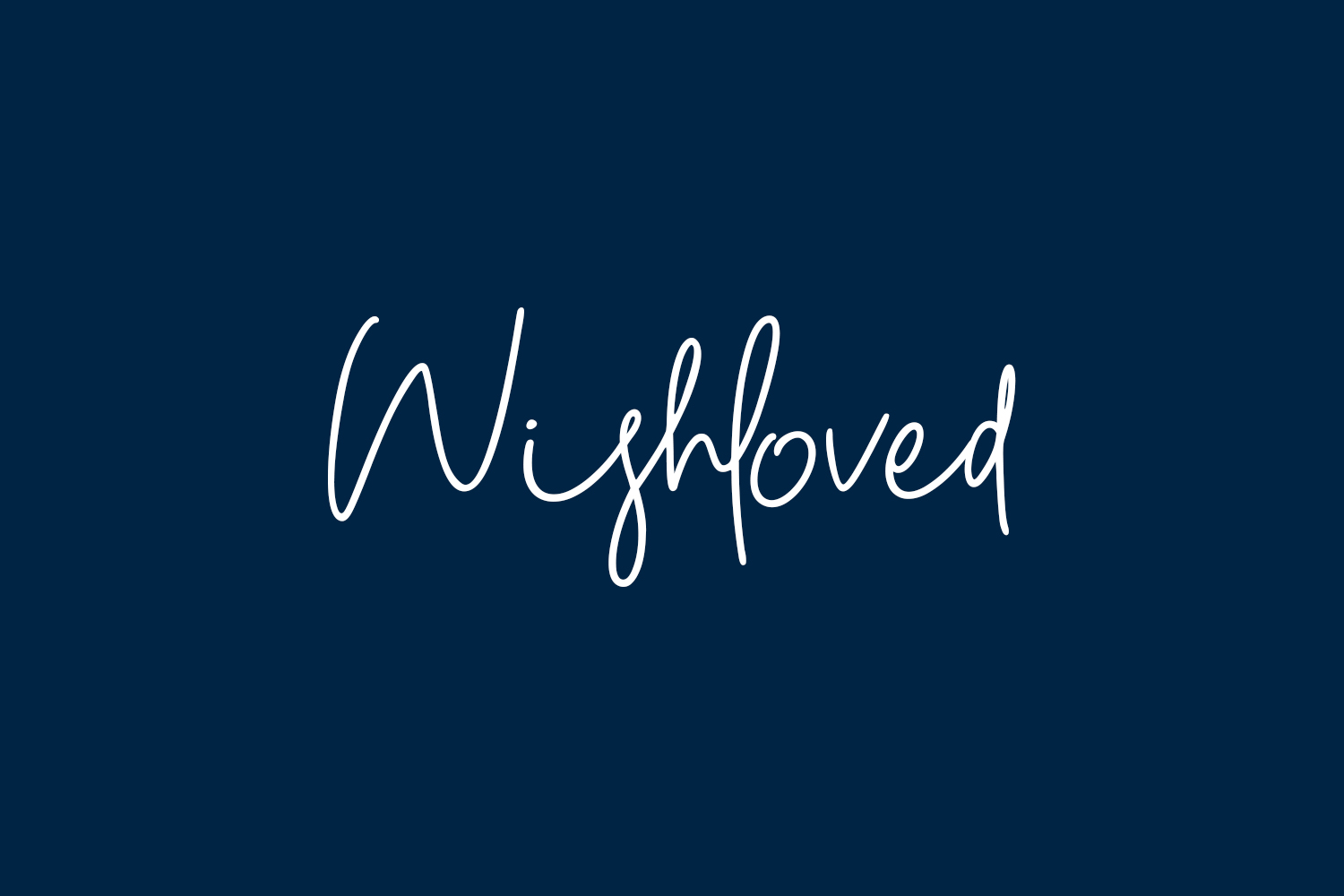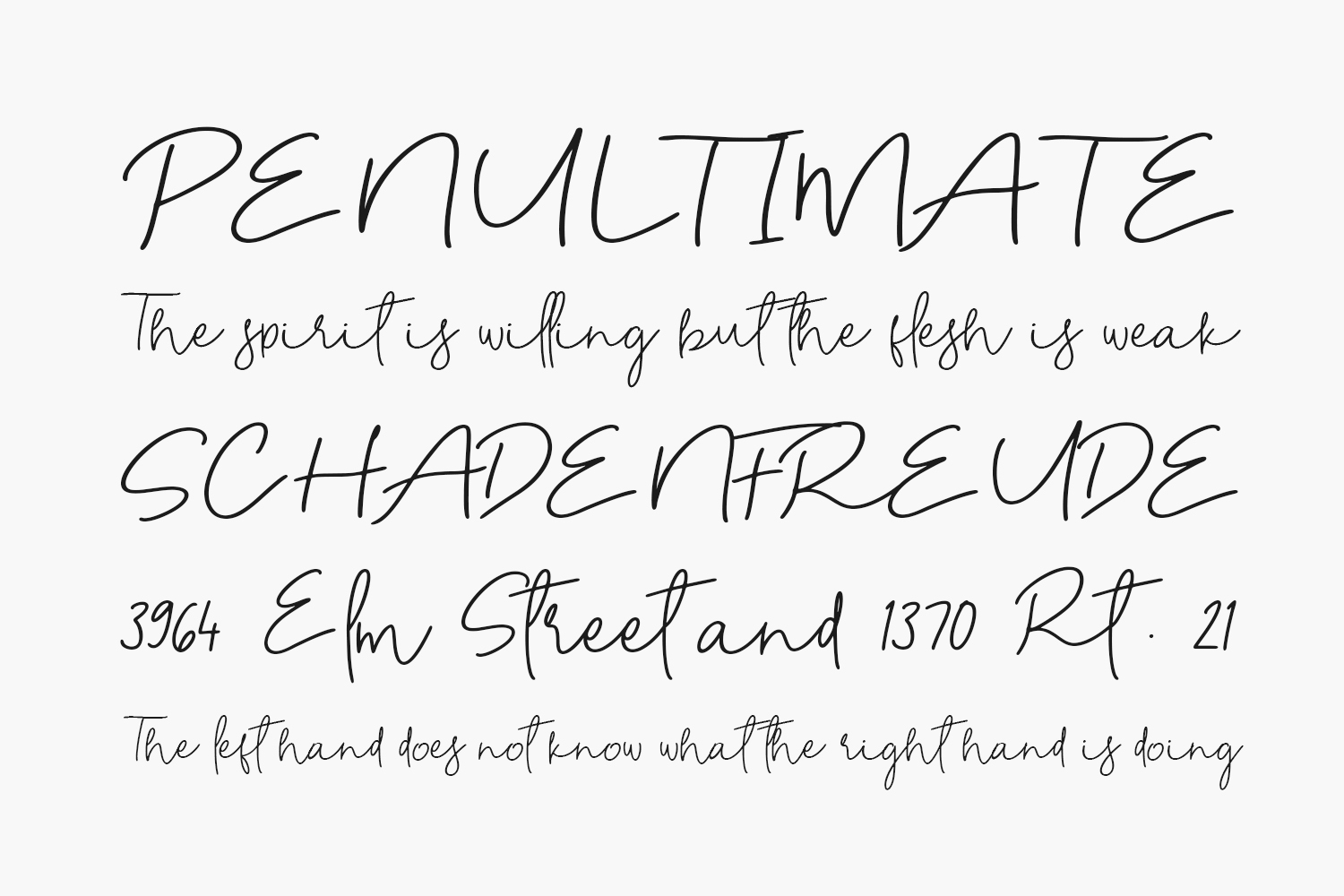
Wishloved Free Font is a beautiful and refined script font. It has a classy, elegant, and modern look that can be used for logos, branding, invitations, stationery, wedding designs, social media posts, and much more. Wishloved Free Font was designed by Glyphstyle and is free for personal use only. Please purchase the full version for commercial use.